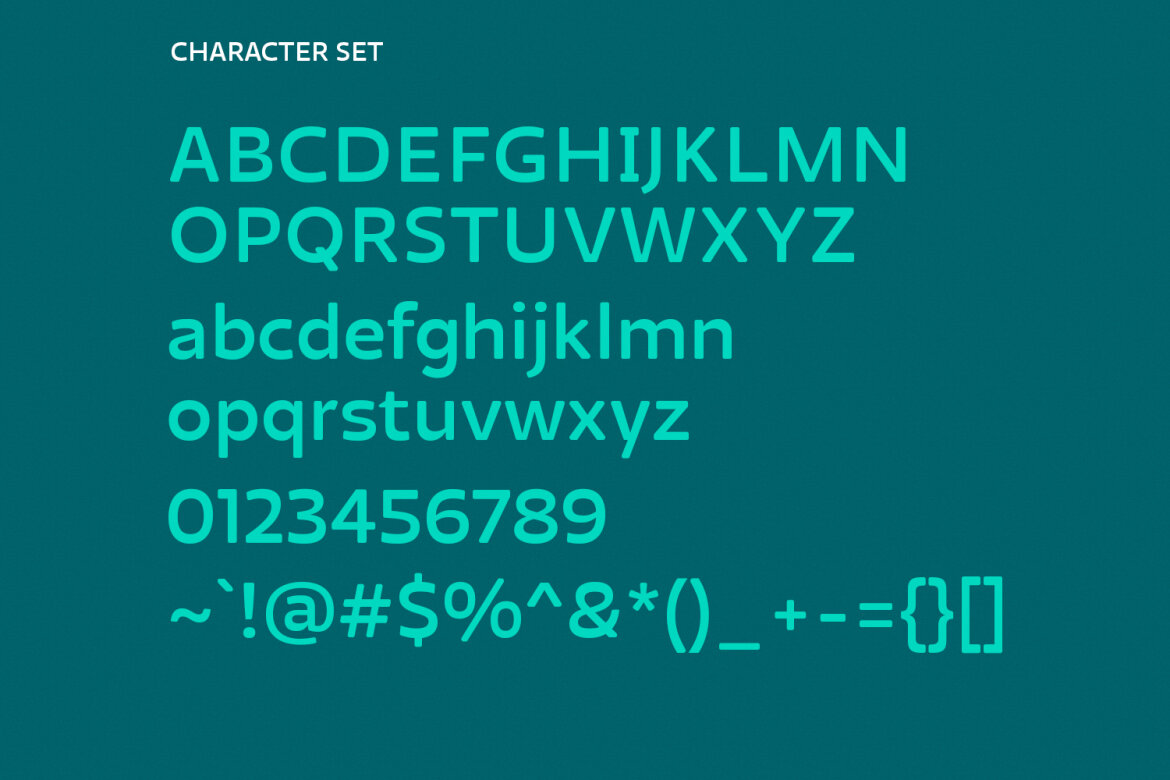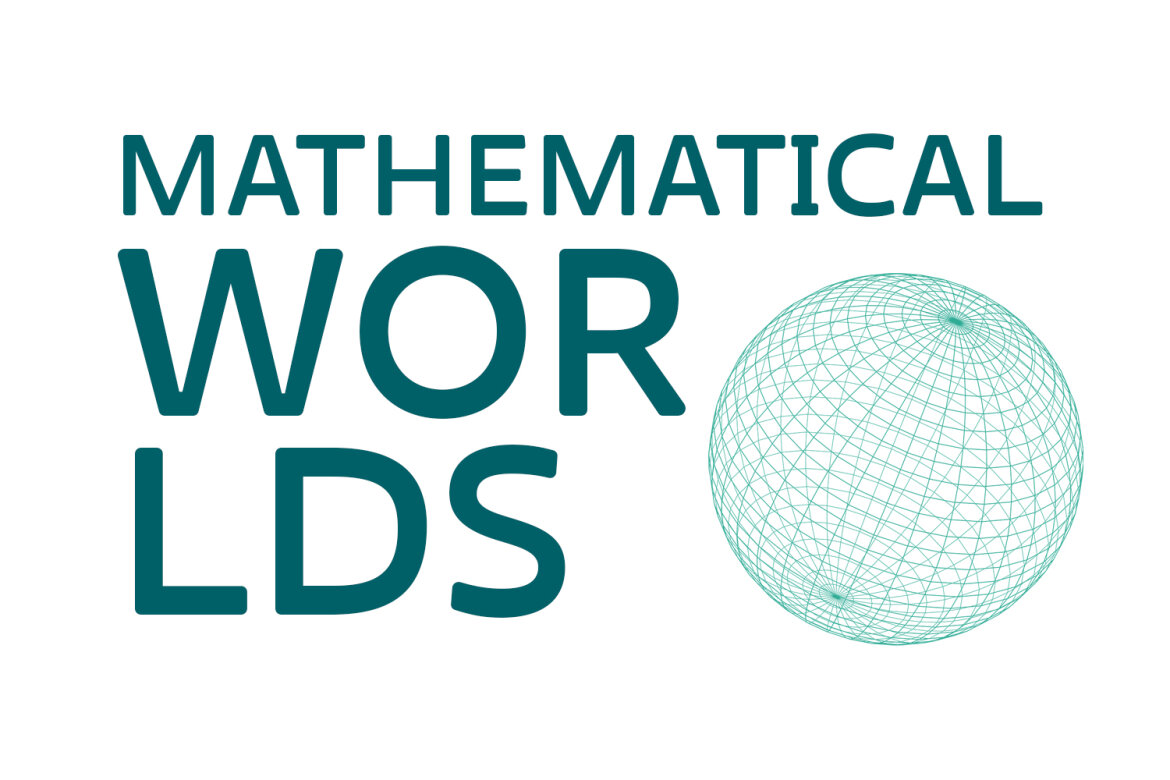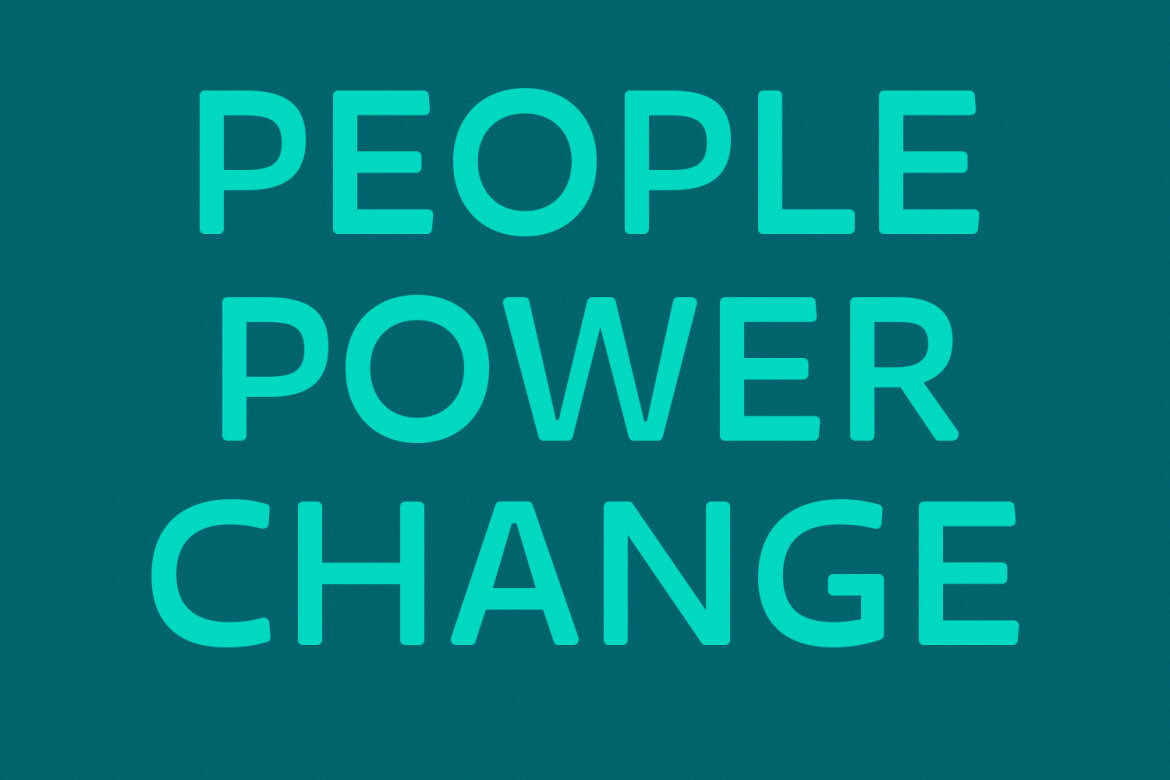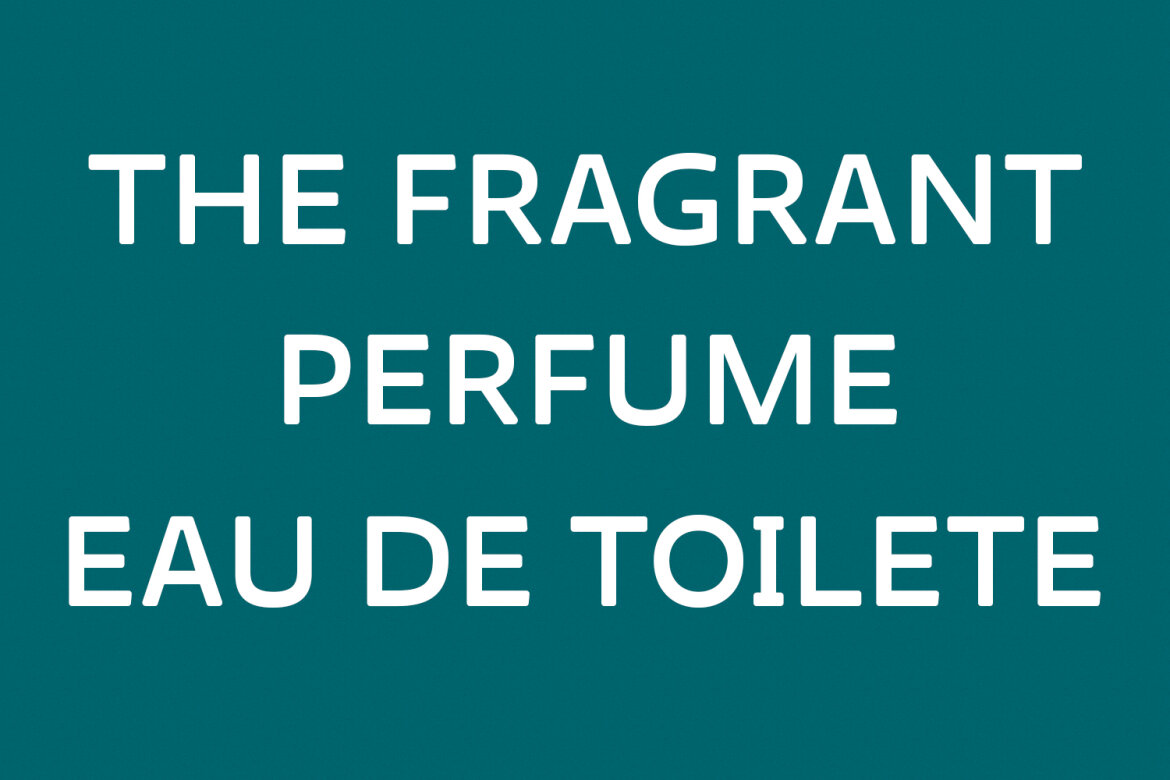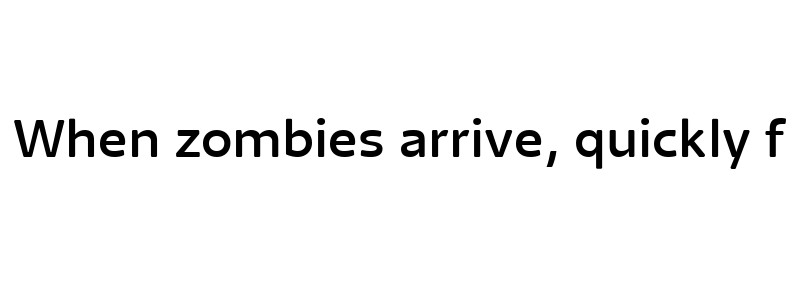
Archiga FREE Sans Serif Font
Archiga is a clean soft edges sans serif font. SemiBold stroke, fun character with a bit of ligatures and alternates. To give you an extra creative work. Archiga font support multilingual more than 100+ language. This font is good for logo design, Social media, Movie Titles, Books Titles, a short text even a long text letter and good for your secondary text font with script or serif. Make a stunning work with Archiga font.